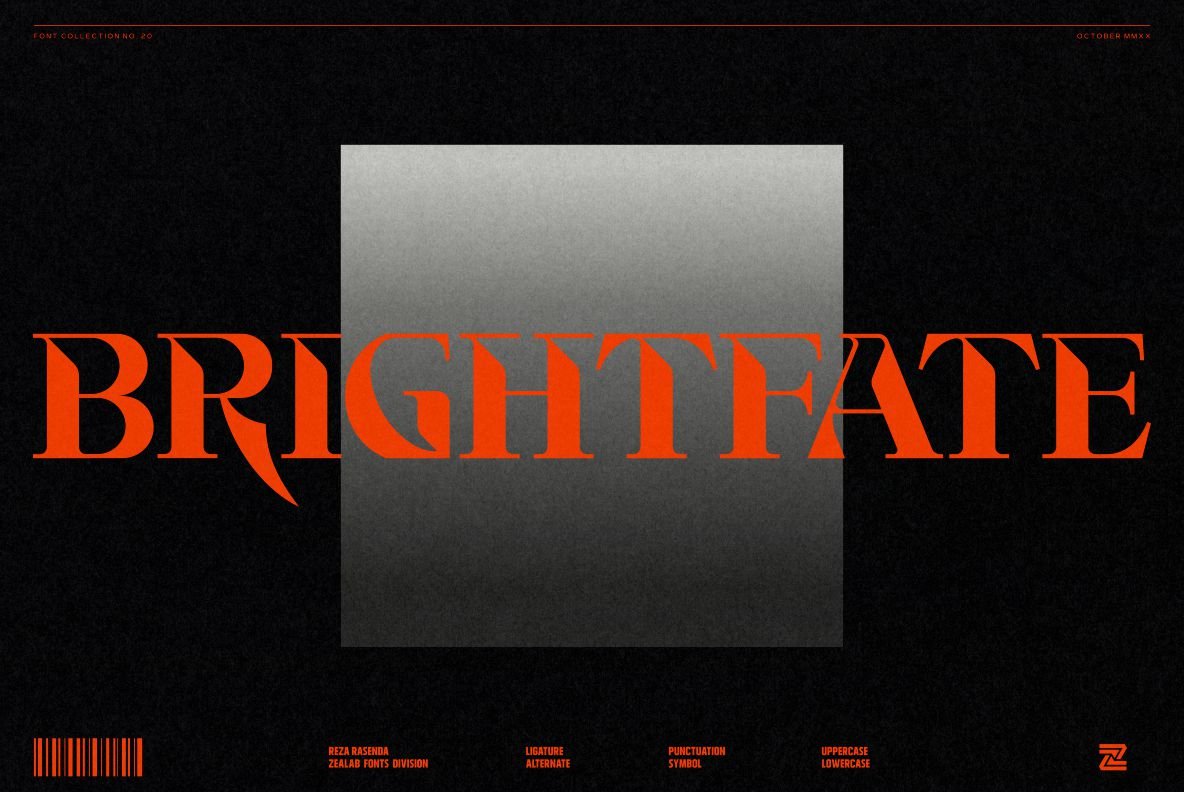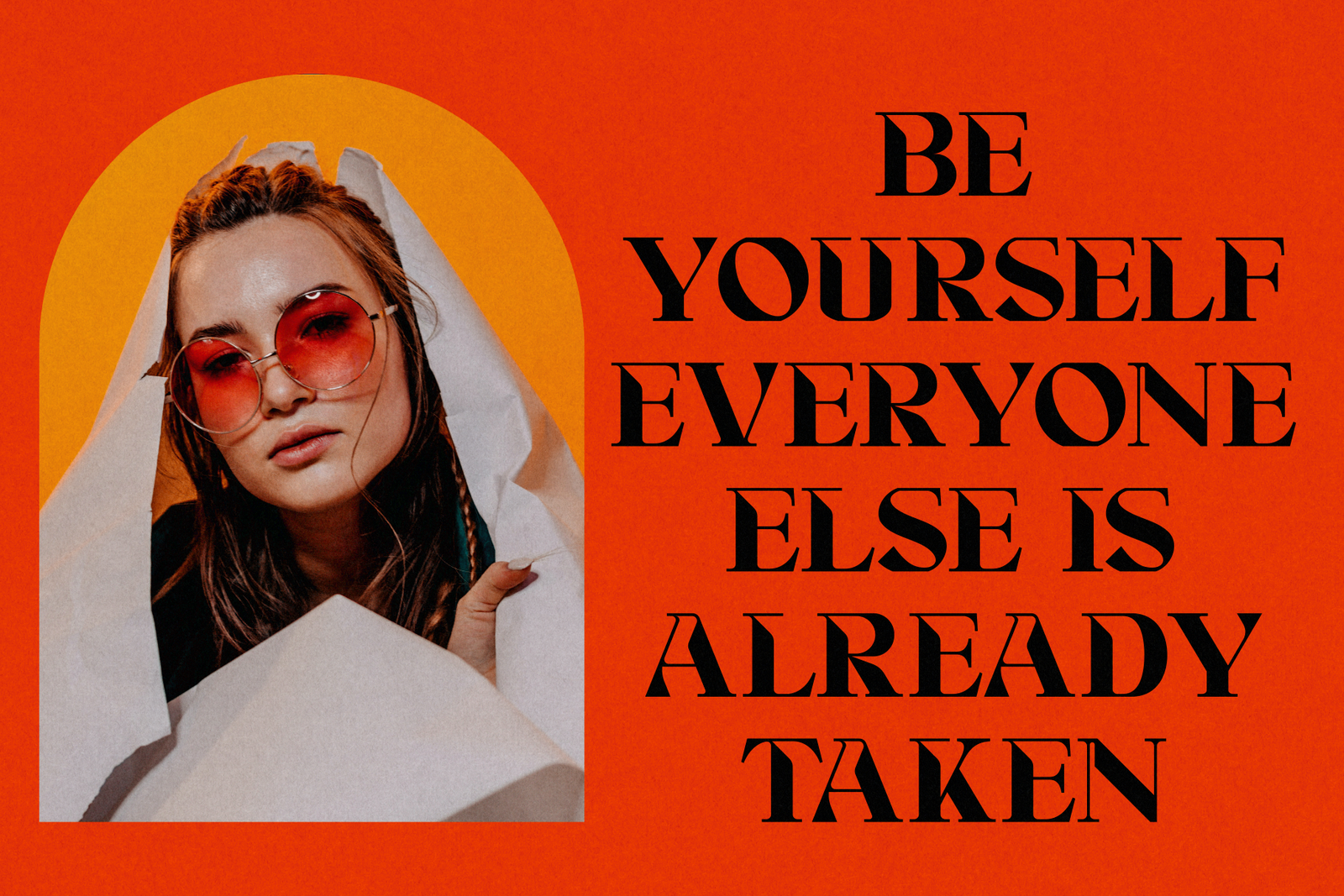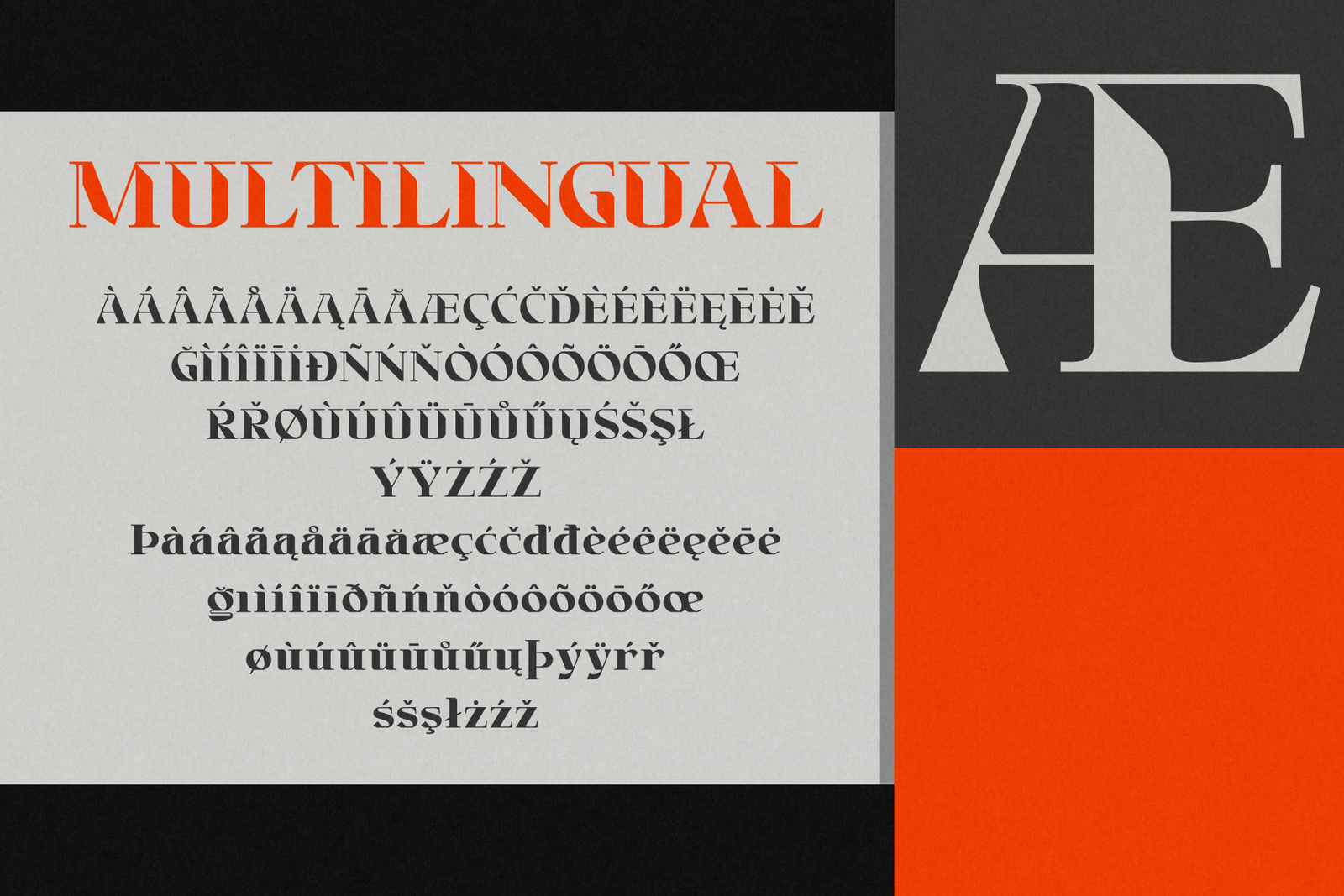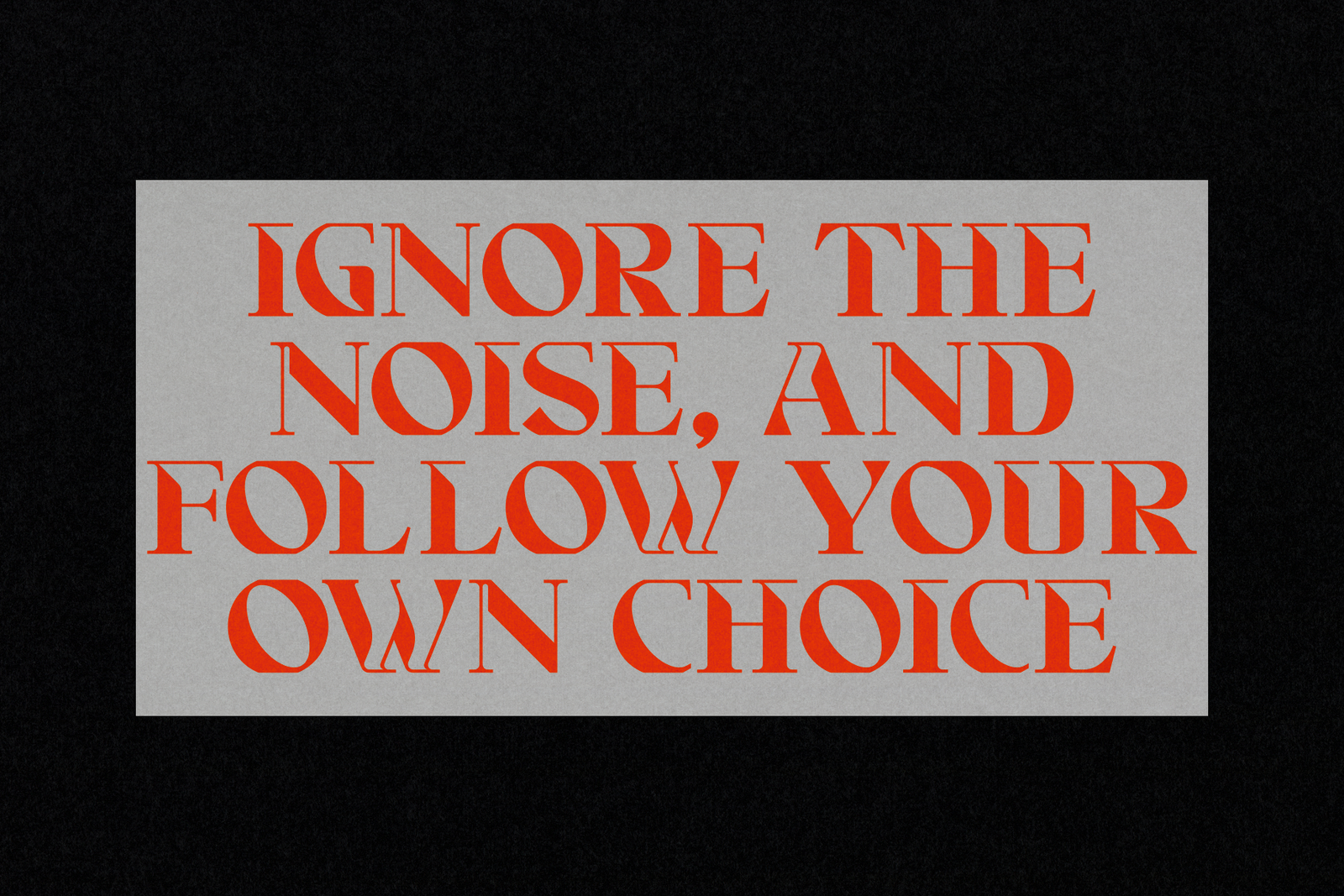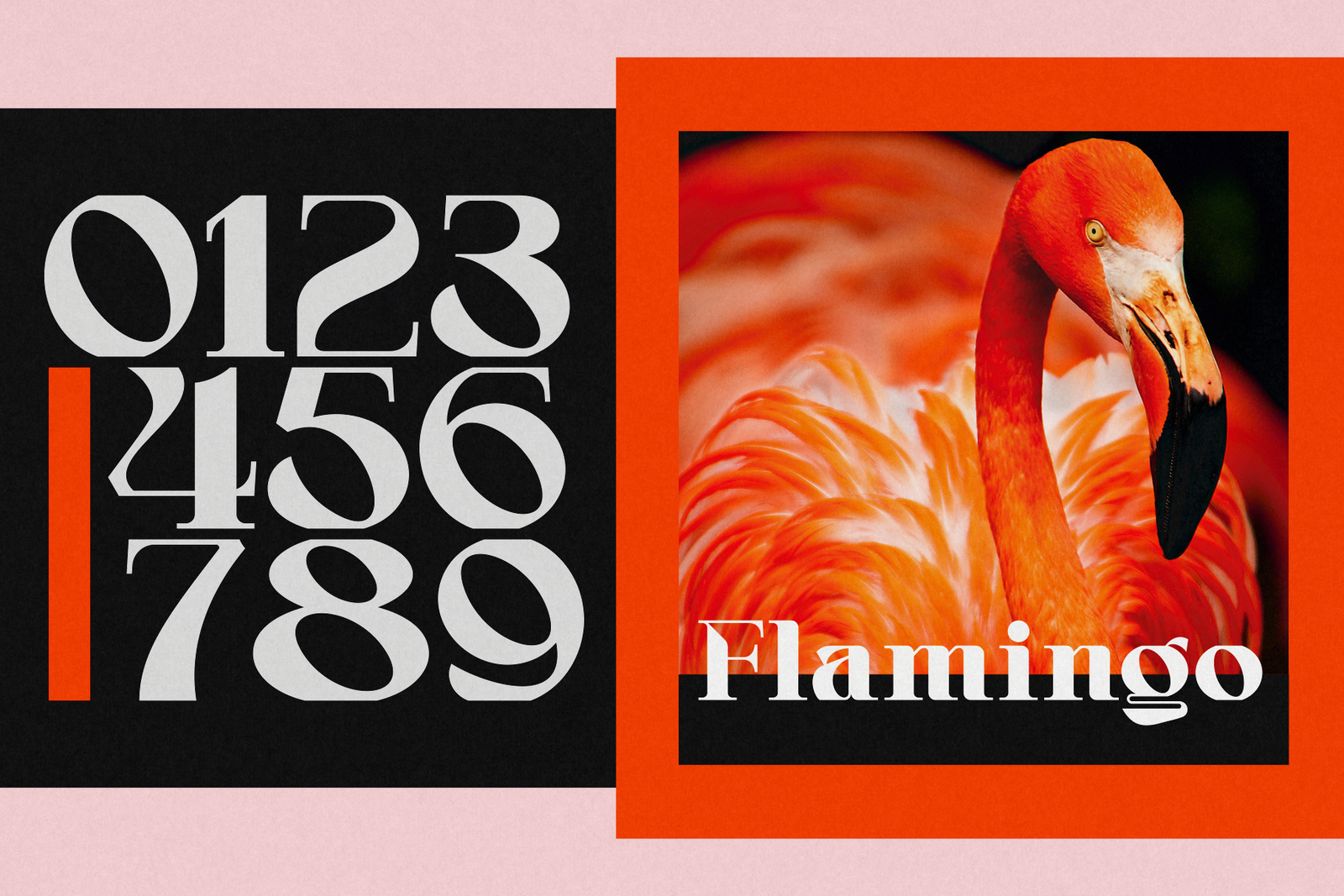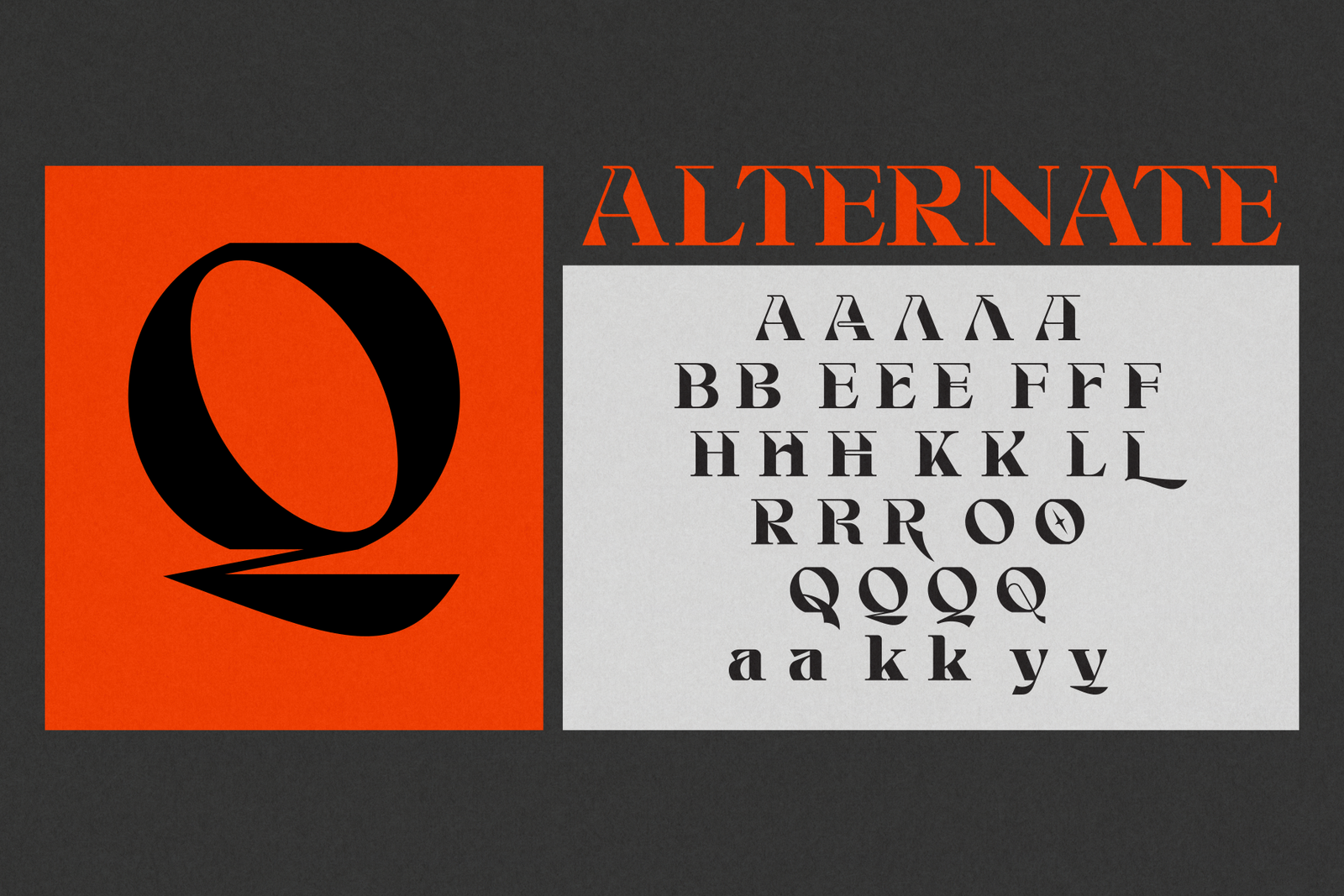
Font Descriptions
Brightfate is font designed by Reza Rasenda & Riska Candra Dewi, with design choices and a combination between the medieval times and urban street wear themes. Brightfate comes with stylistic, alternates, ligatures and supports multilingual languages.
Brightfate